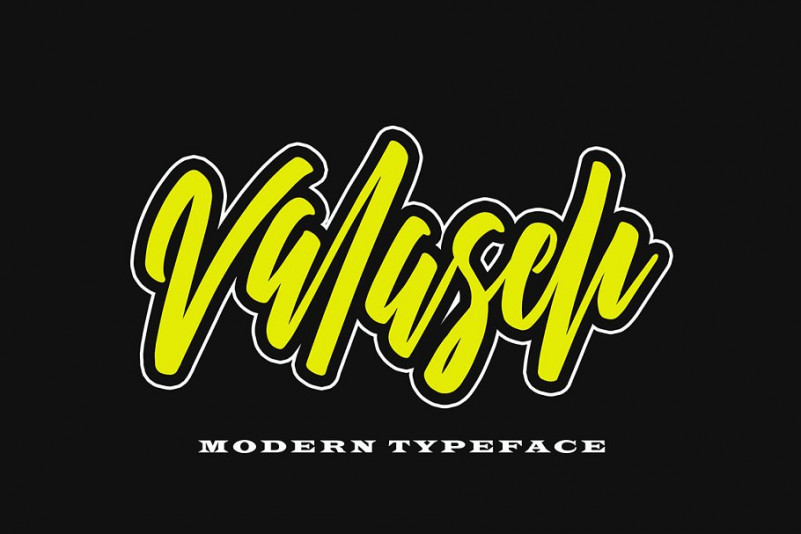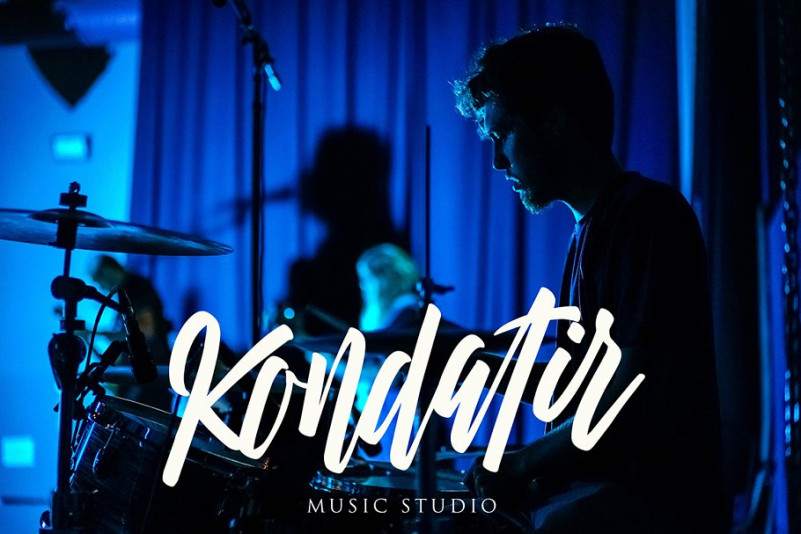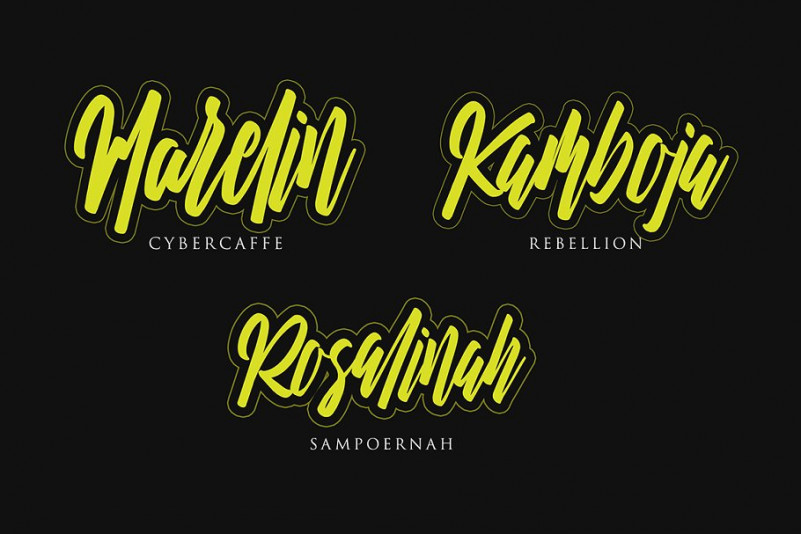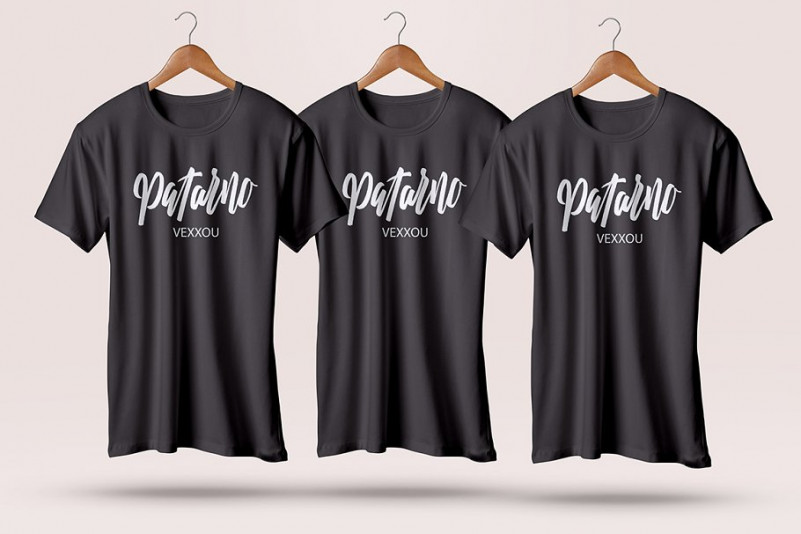
Valaseh Font
Valaseh script font with modern style, this font will perfect for many different project ex: quotes, logo, blog header, poster, banding, fashion, apparel, letter, invitation, stationery, etc…